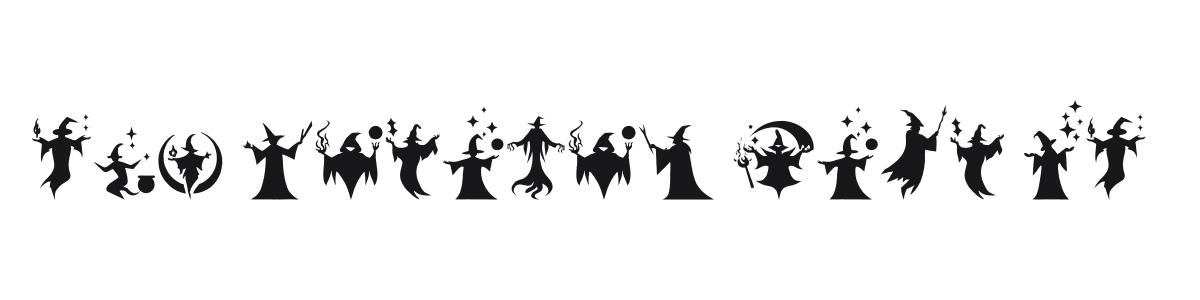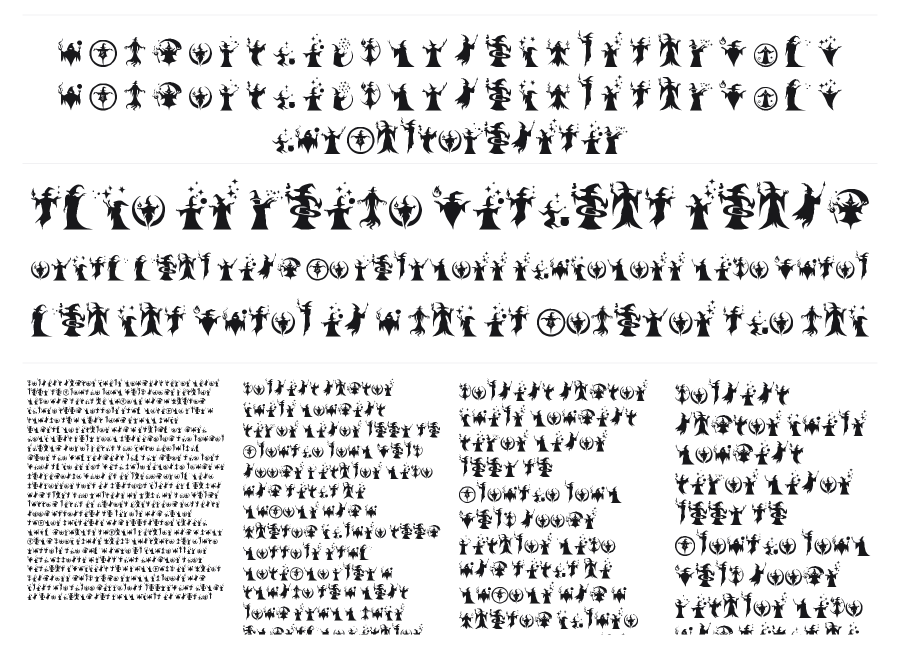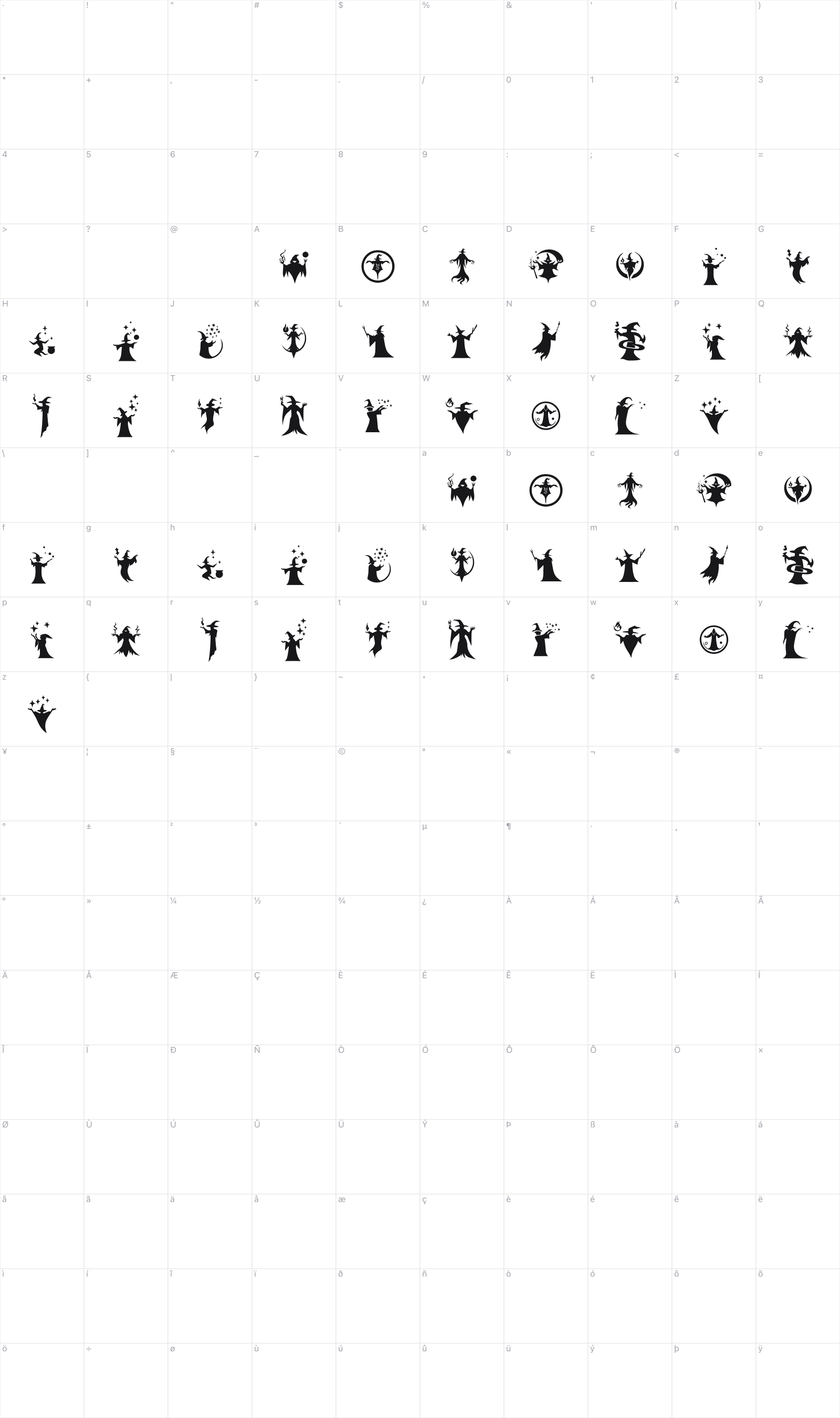
The Magical Ding St
The Magical Ding St is a dingbat font featuring a cast of witches and wizards rendered as bold, clean silhouettes. Each character captures a different magical pose, from cauldron-stirring to wand-waving, with small stars and sparks adding charm. A fun resource for Halloween projects, fantasy branding, and themed editorial work.